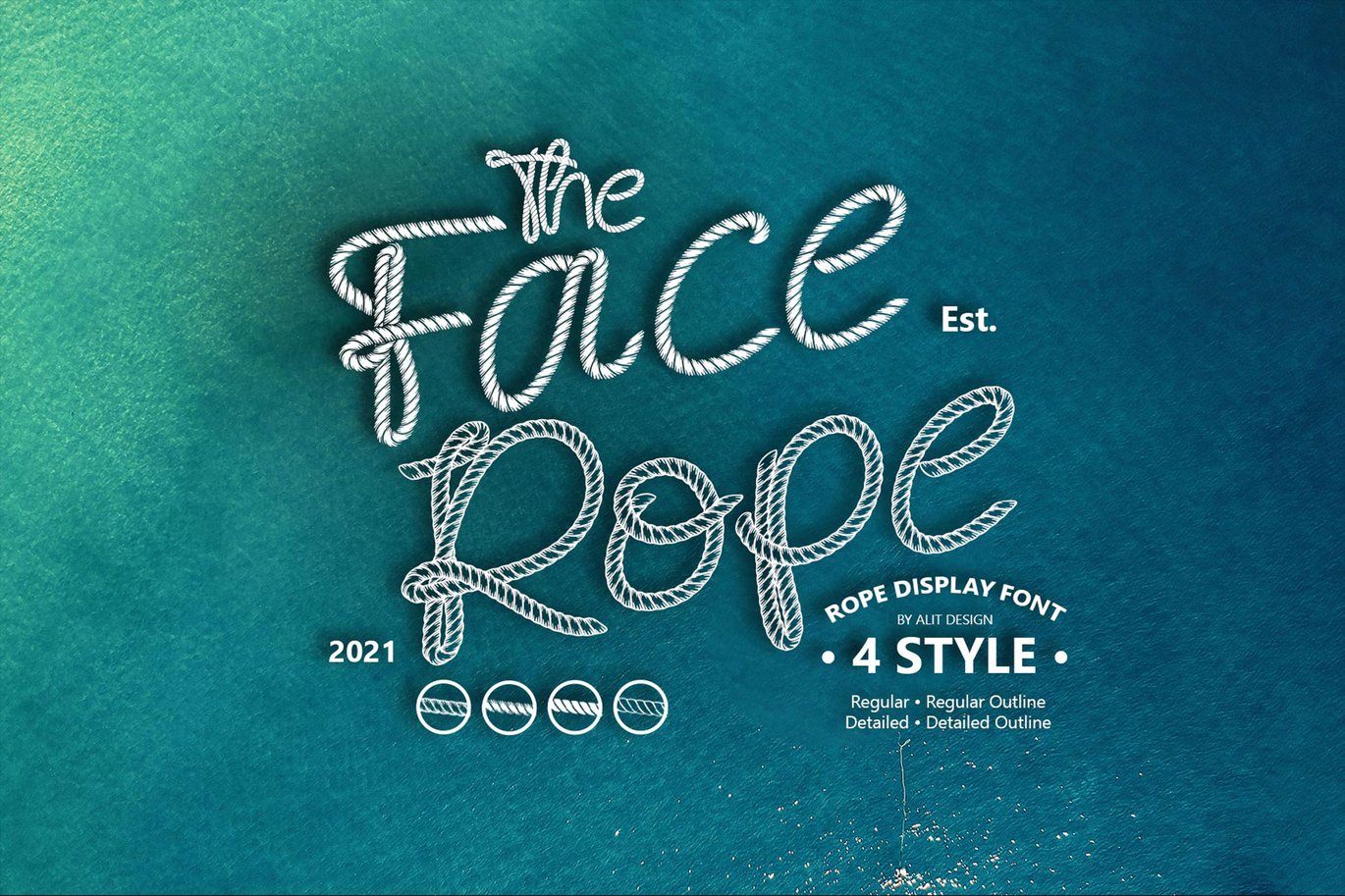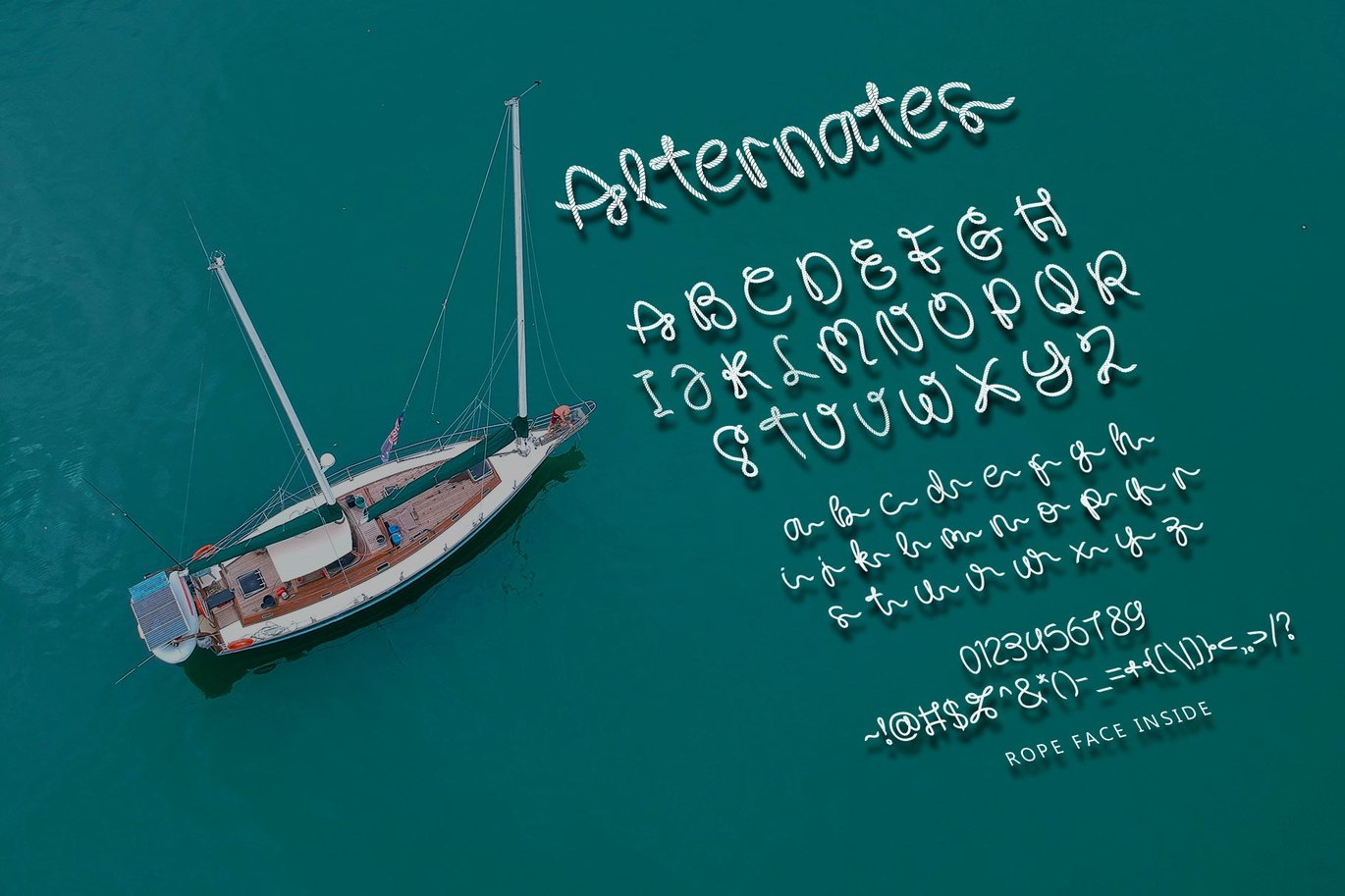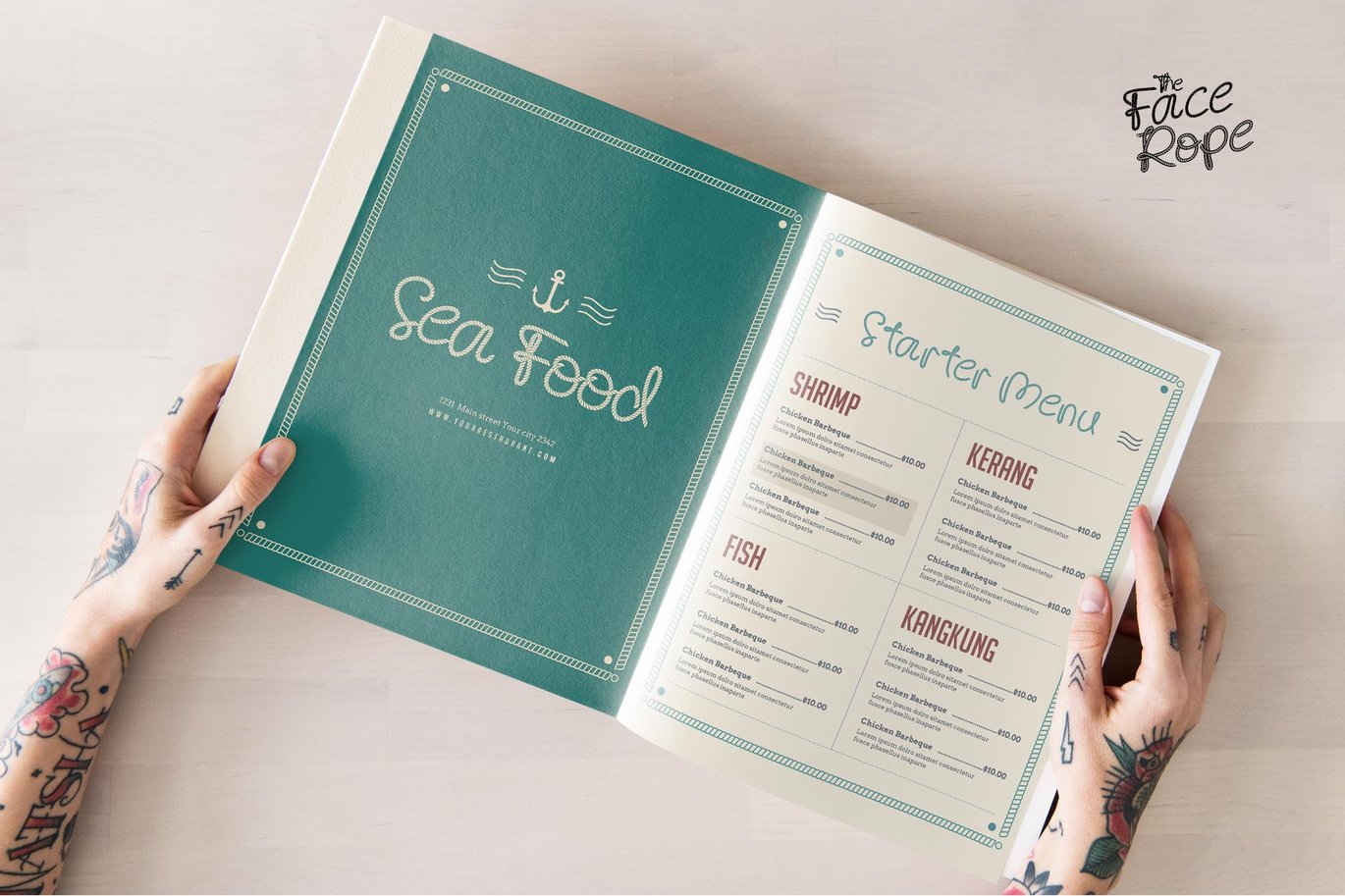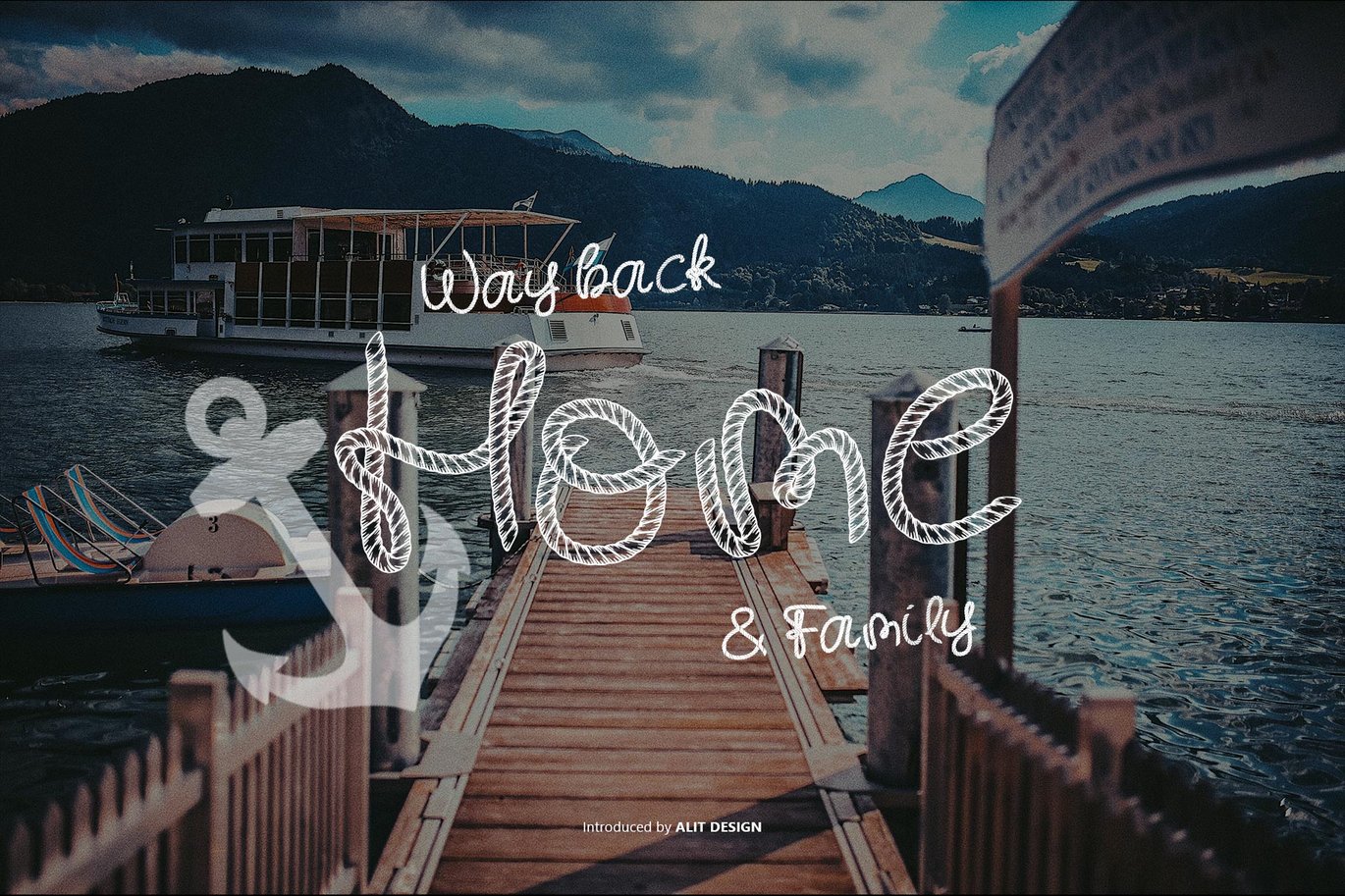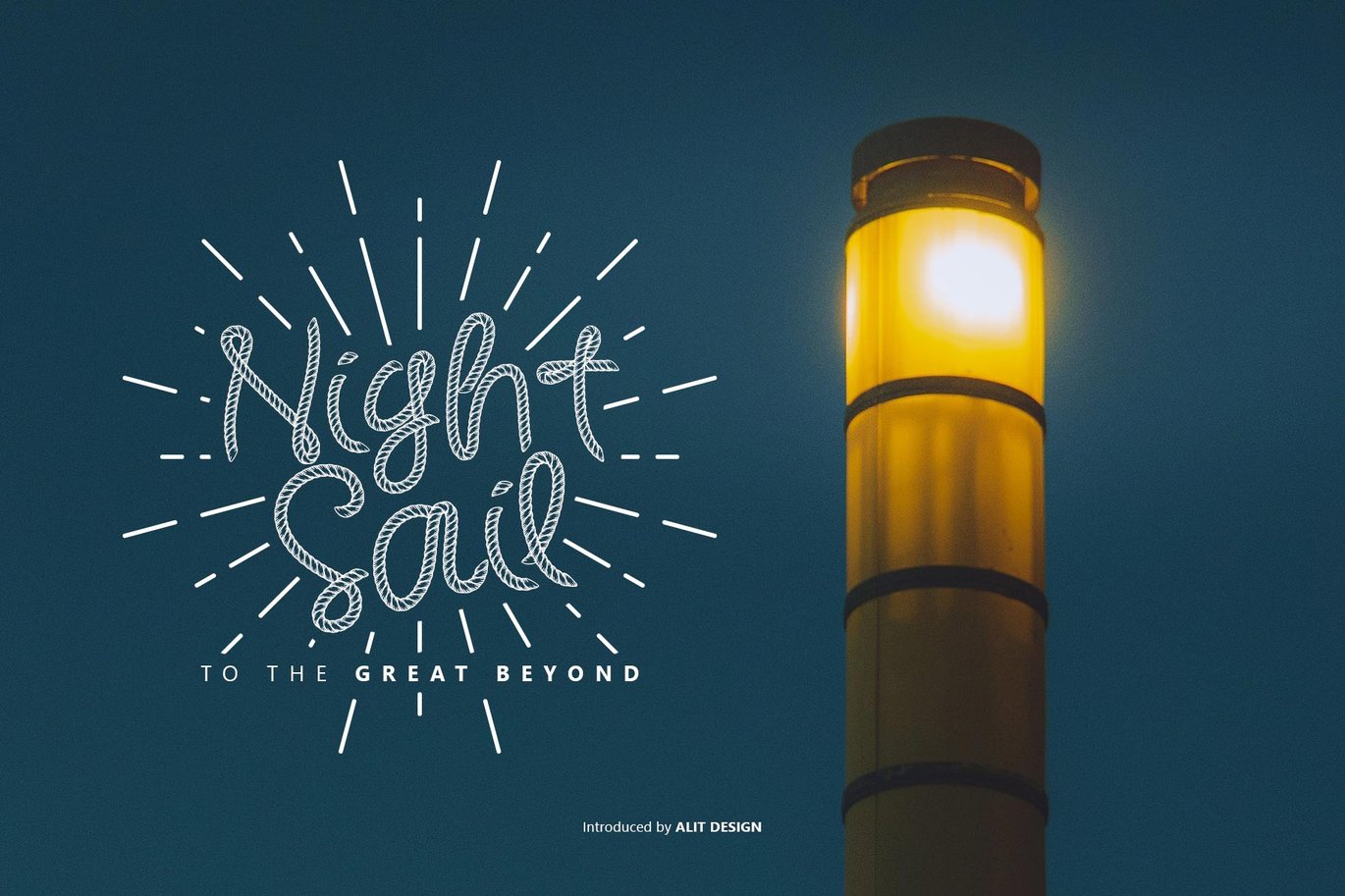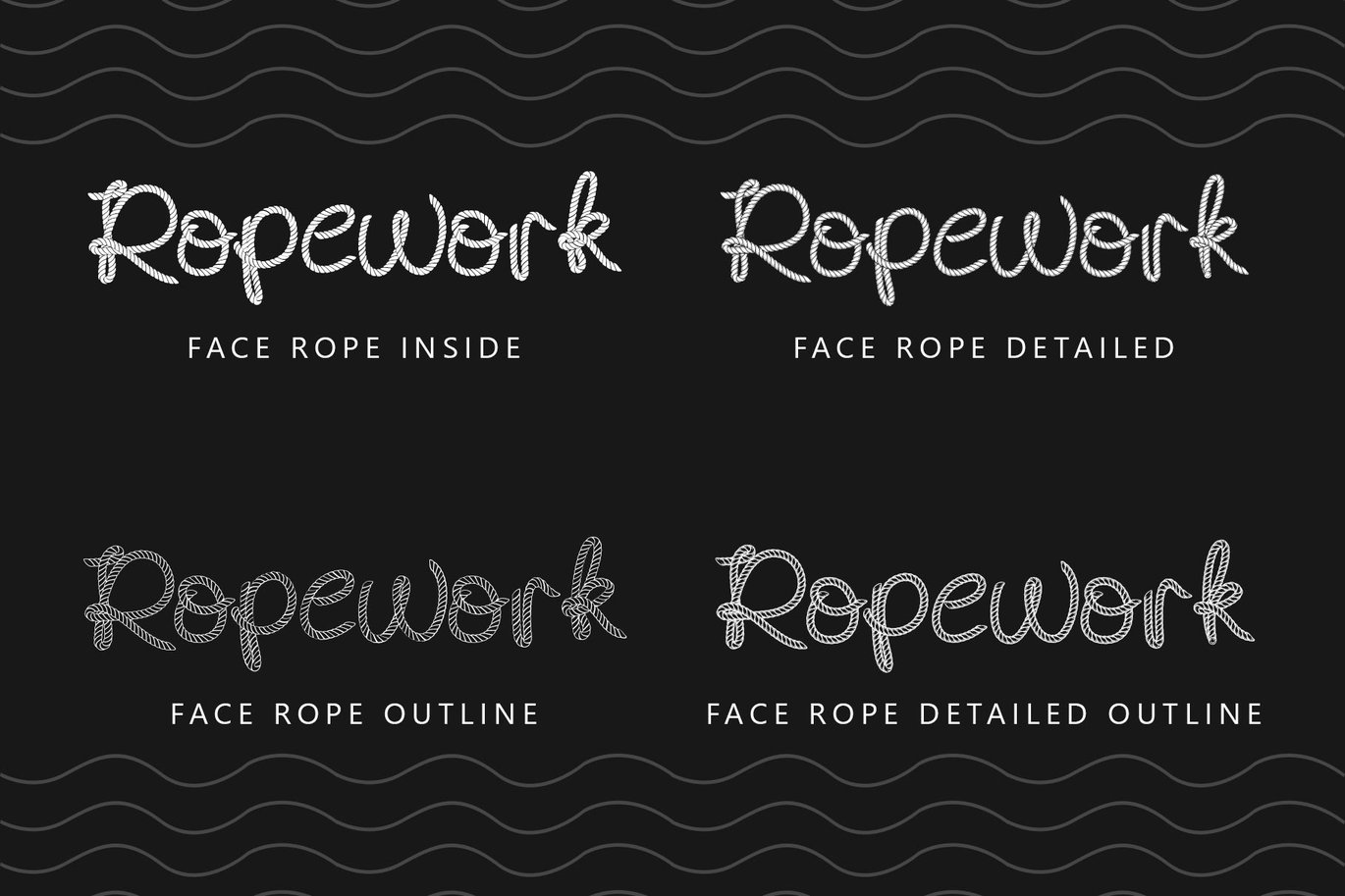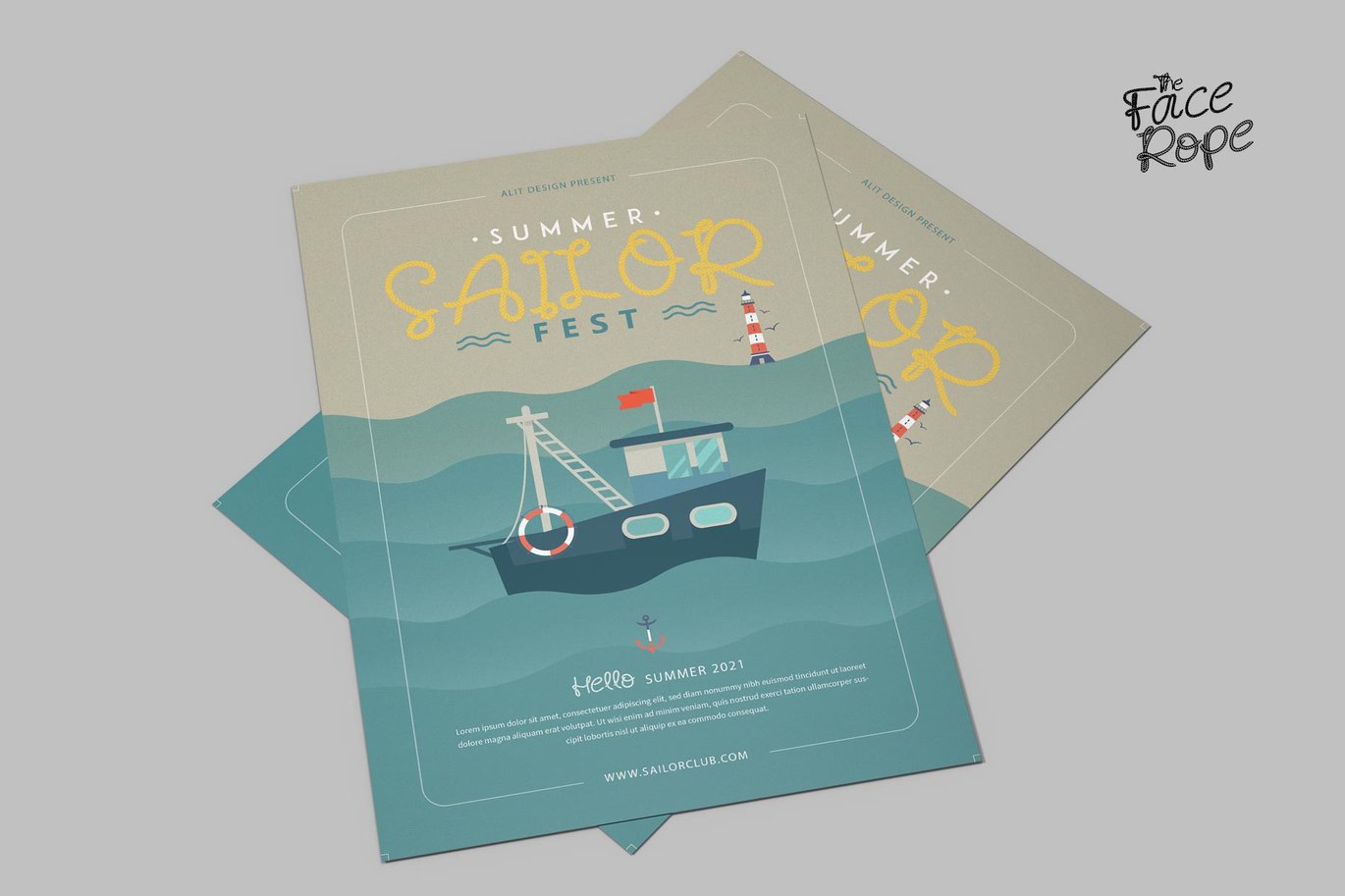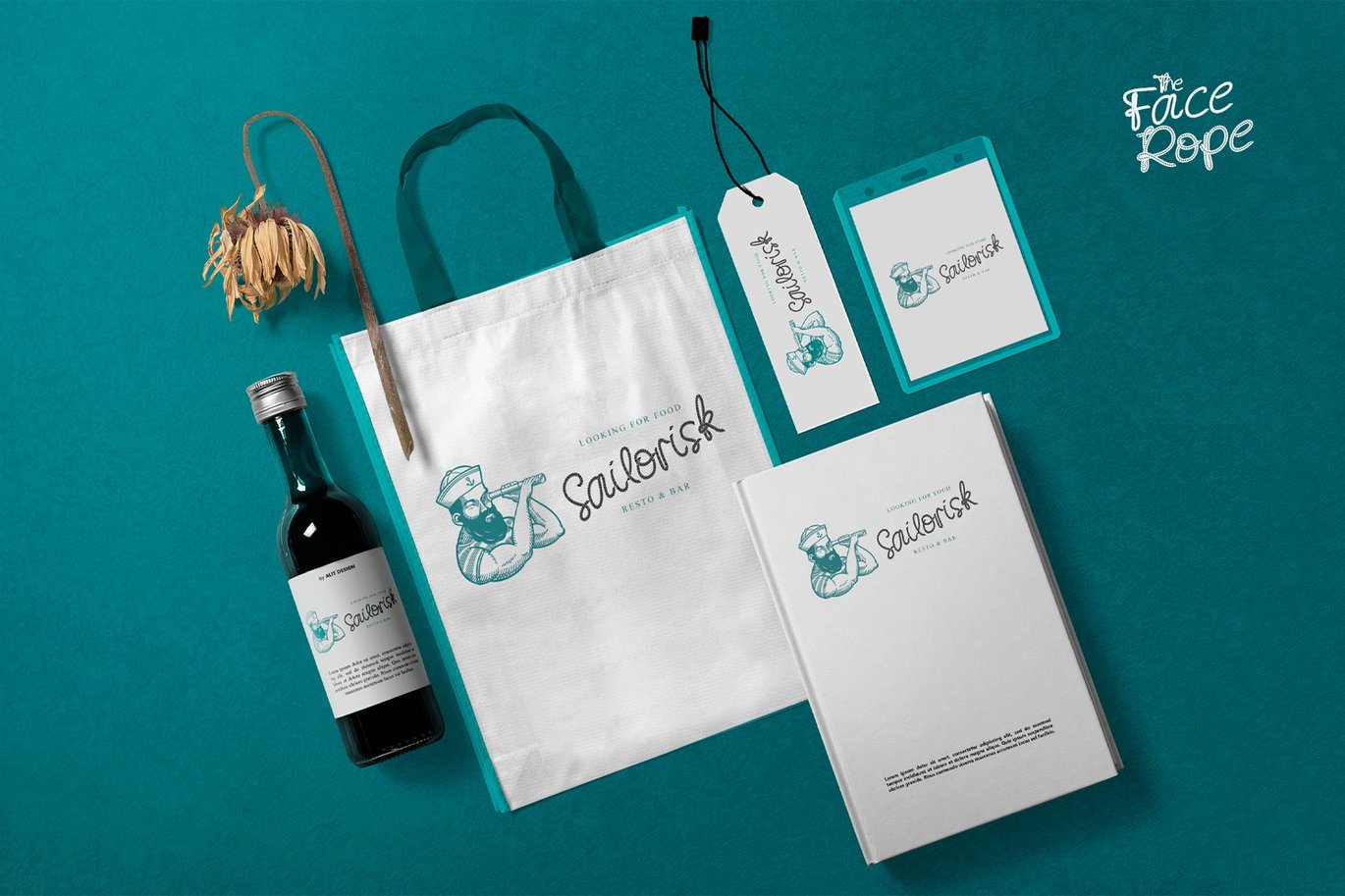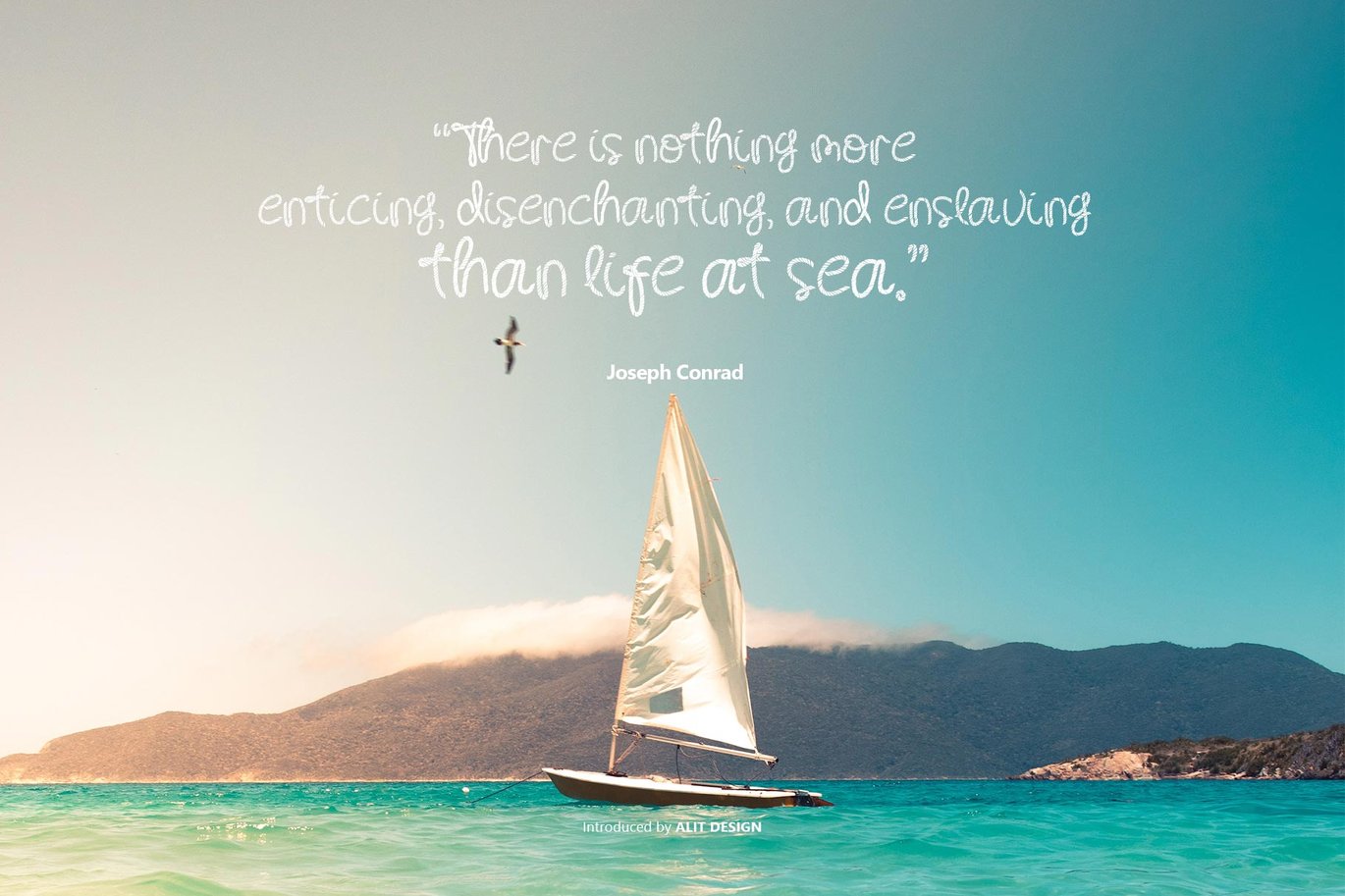
Face Rope Typeface
Face Rope Typeface is inspired by the shape of a ship’s slap rope. The unique shape of the rope character makes the face rope typeface steal attention and be easy to remember.
very suitable for designs with the theme of marine, summer and so on.
- A-Z Character Set
- Numerals & Punctuations (OpenType Standard)
- Stylistic Alternates